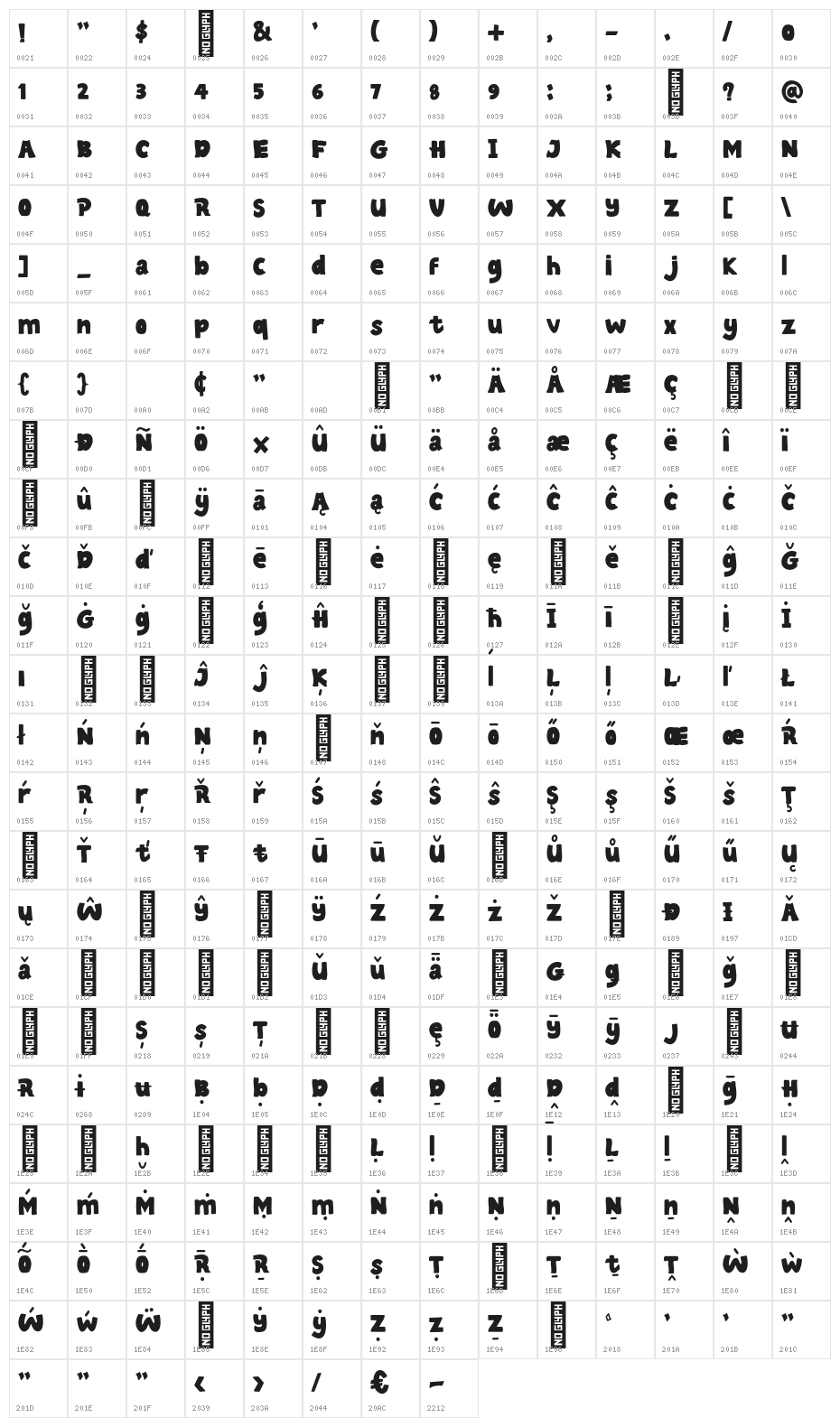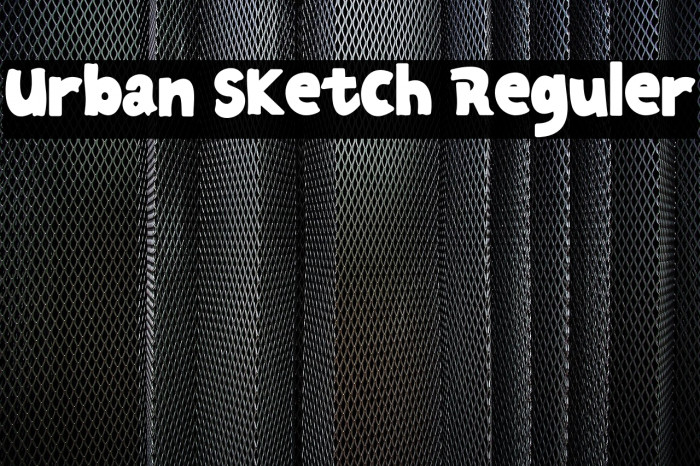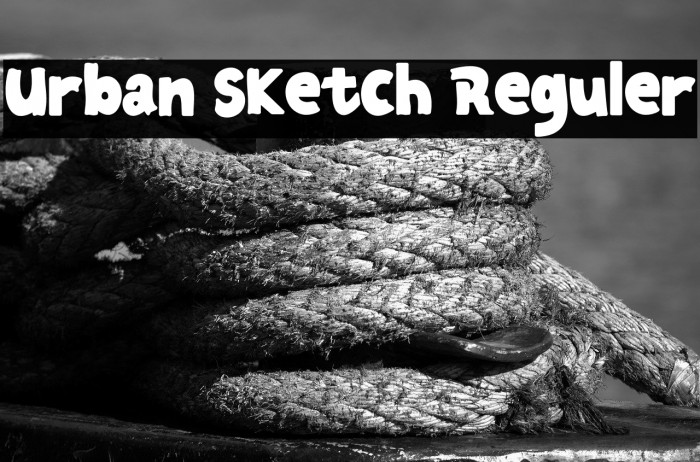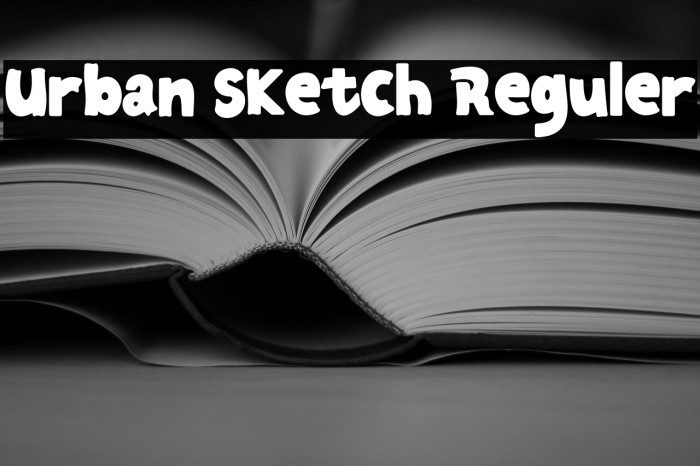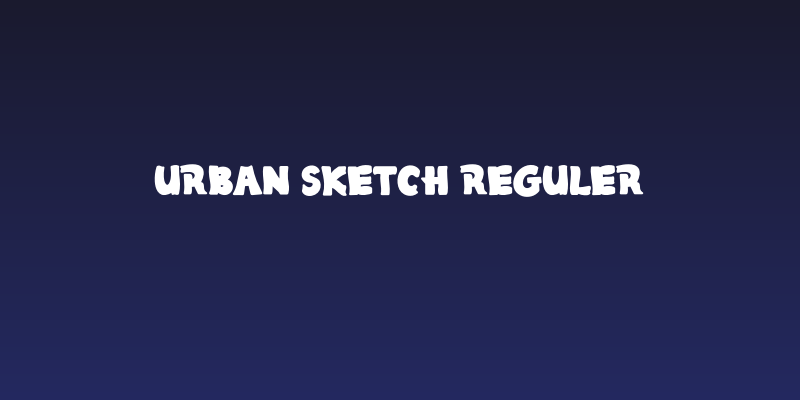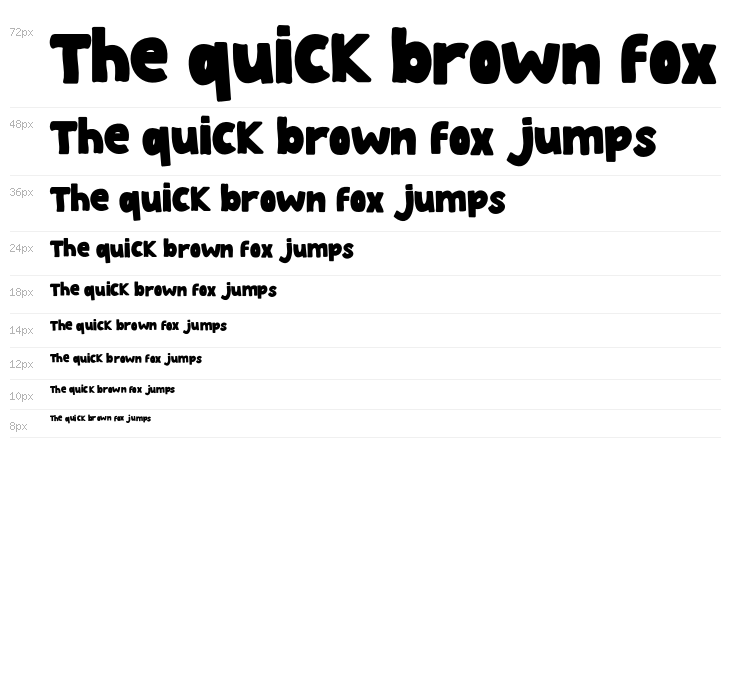
Urban Sketch Reguler Font
Urban Sketch Reguler Description
This font features a bold, playful style with a hand-drawn aesthetic. The characters are thick and rounded, giving a friendly and approachable feel. The uppercase and lowercase letters maintain a consistent weight, while the numbers and special characters are designed to match the overall whimsical theme. The font's informal and artistic nature makes it suitable for creative projects that require a touch of personality and flair.
| Overall Style | Playful, Artistic |
| Proposed Projects | Ideal for children's books, playful branding, casual invitations, and creative posters. |